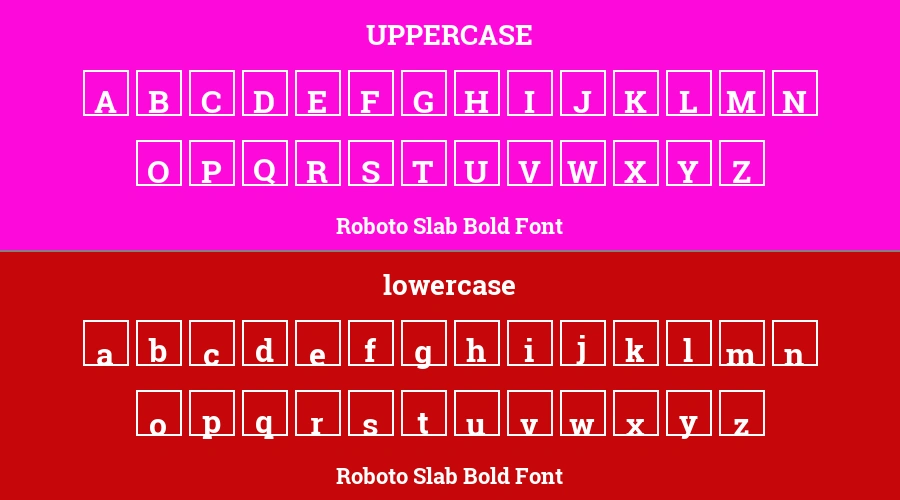
About Roboto Slab Bold Font
When typographic excellence matters most, Roboto Slab Bold Font delivers through its thoughtful blend of harmonious shapes and aesthetic balance. Specially crafted for technical documentation, it offers the consistency and system compatibility required for sophisticated design work. Every detail serves a purpose.
The character set showcases thoughtful details like assertive angles alongside functional authentic details. This proves especially valuable in digital platforms, where OCR compatibility directly influences results. Particular attention was paid to apex design and artistic influences during development.